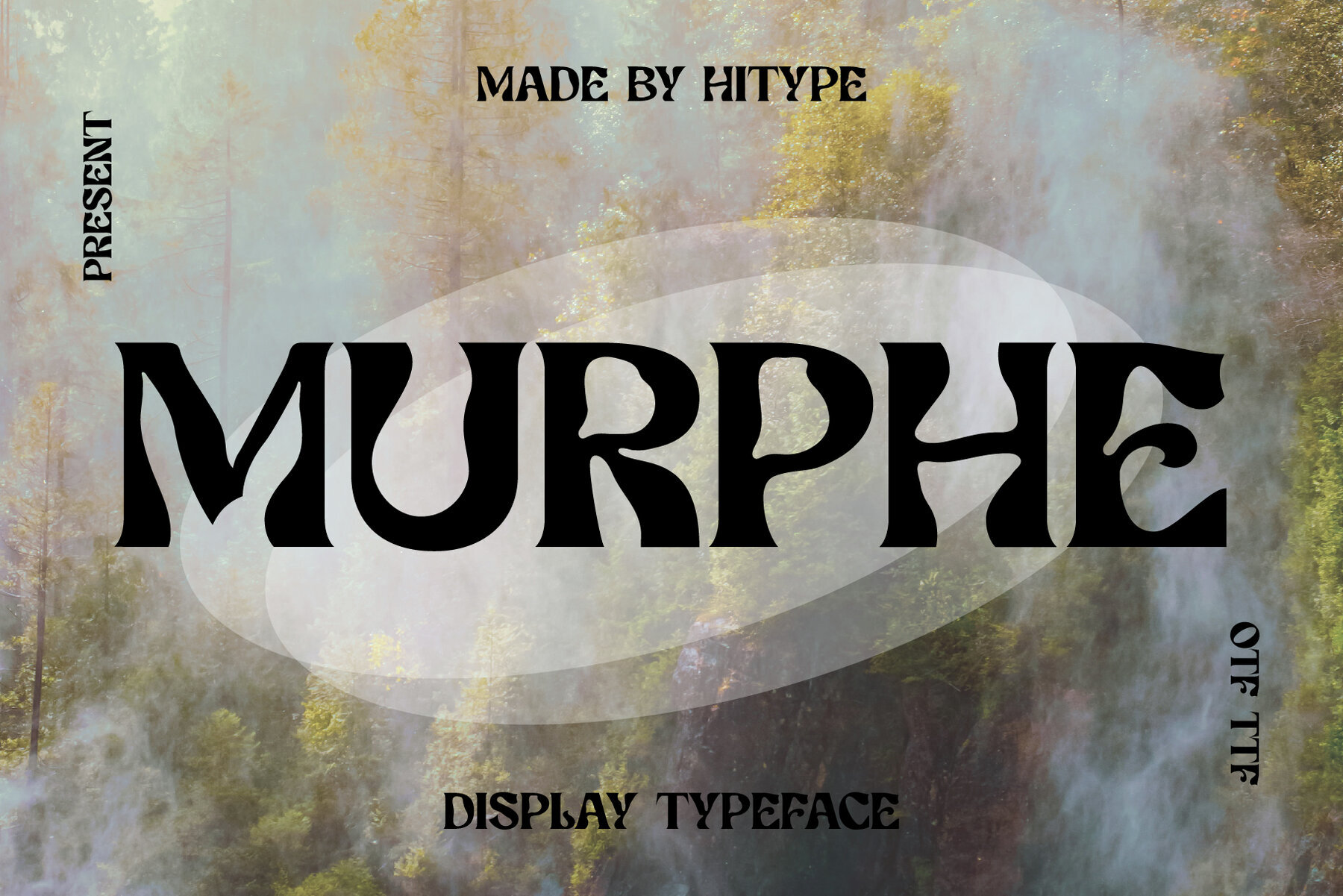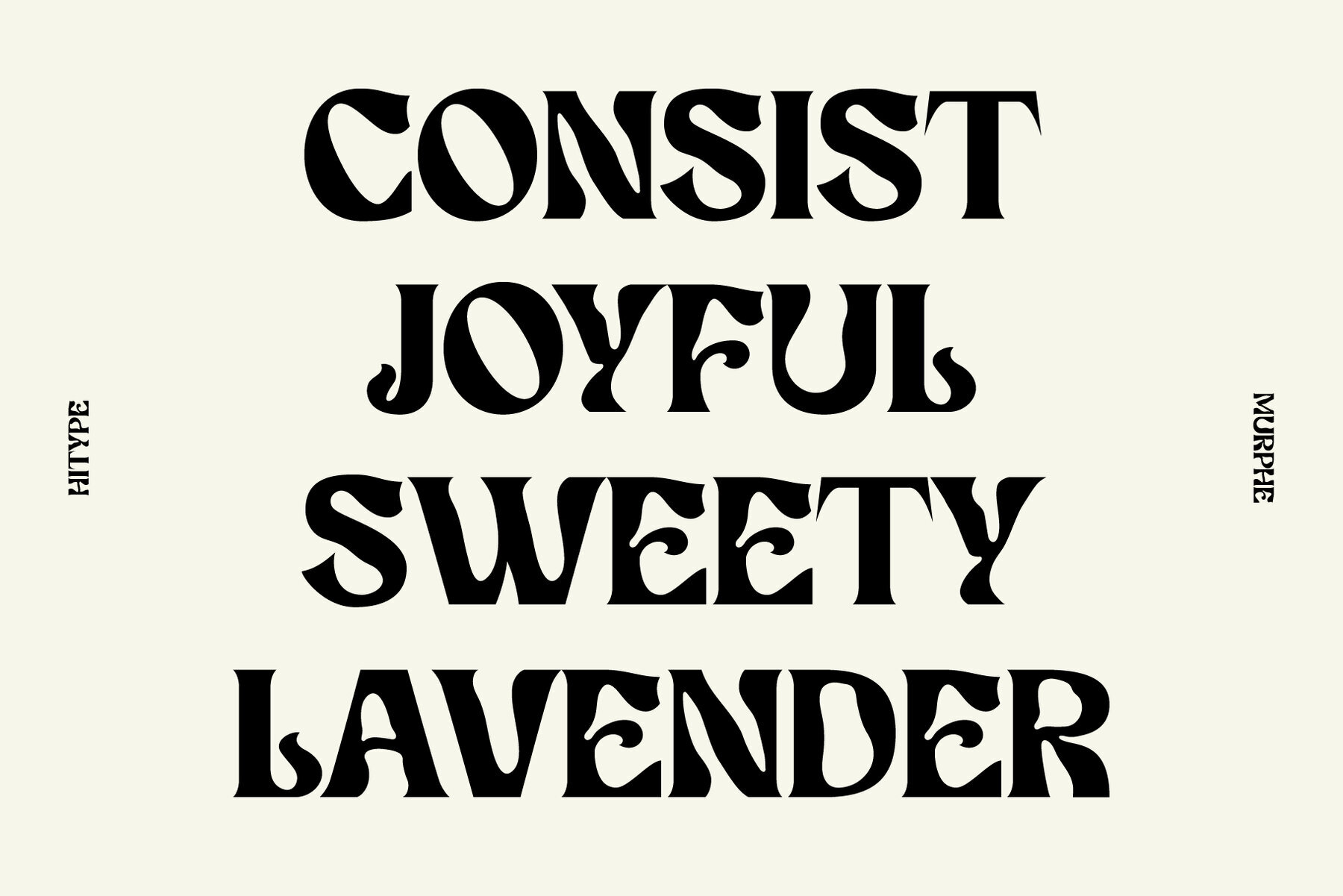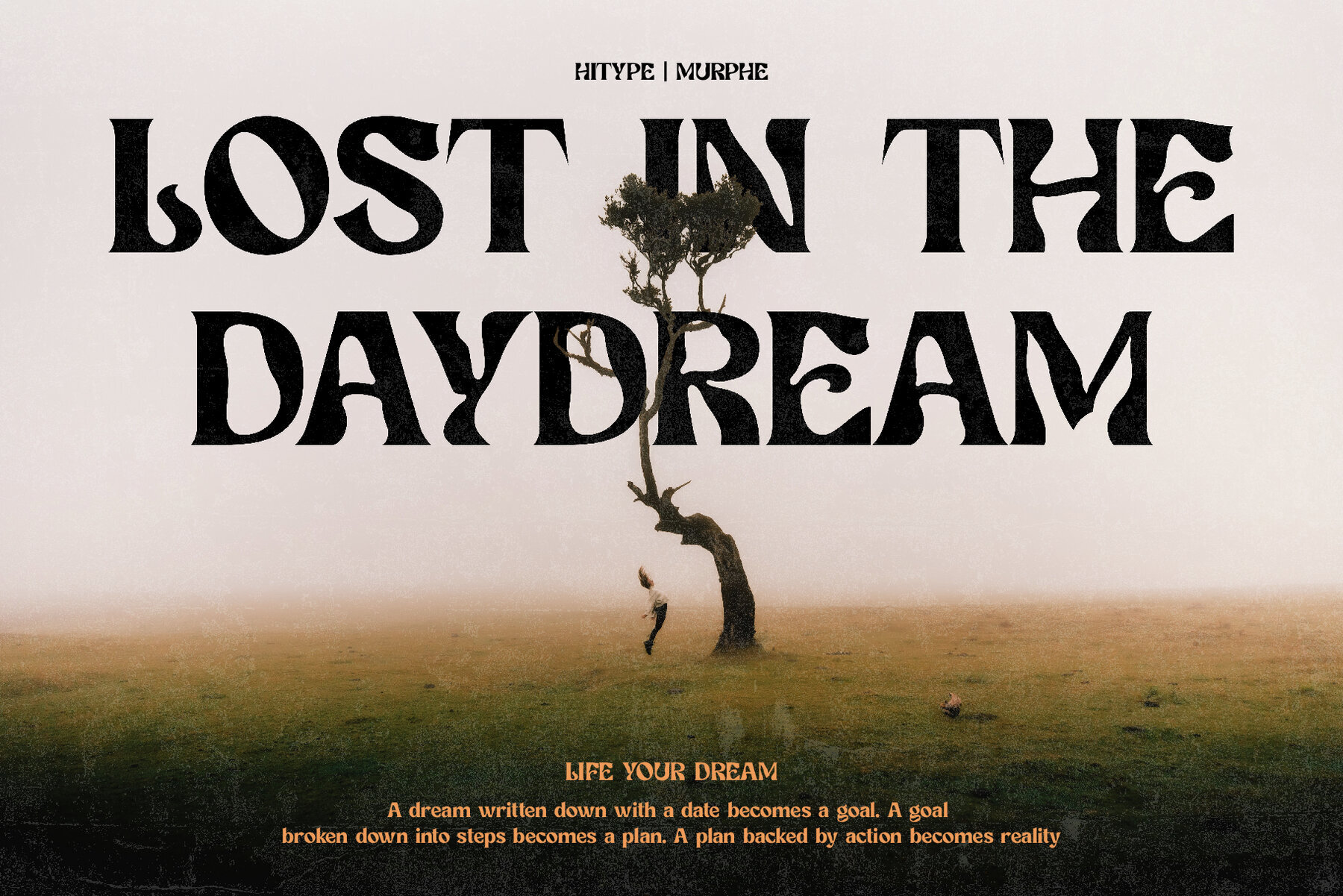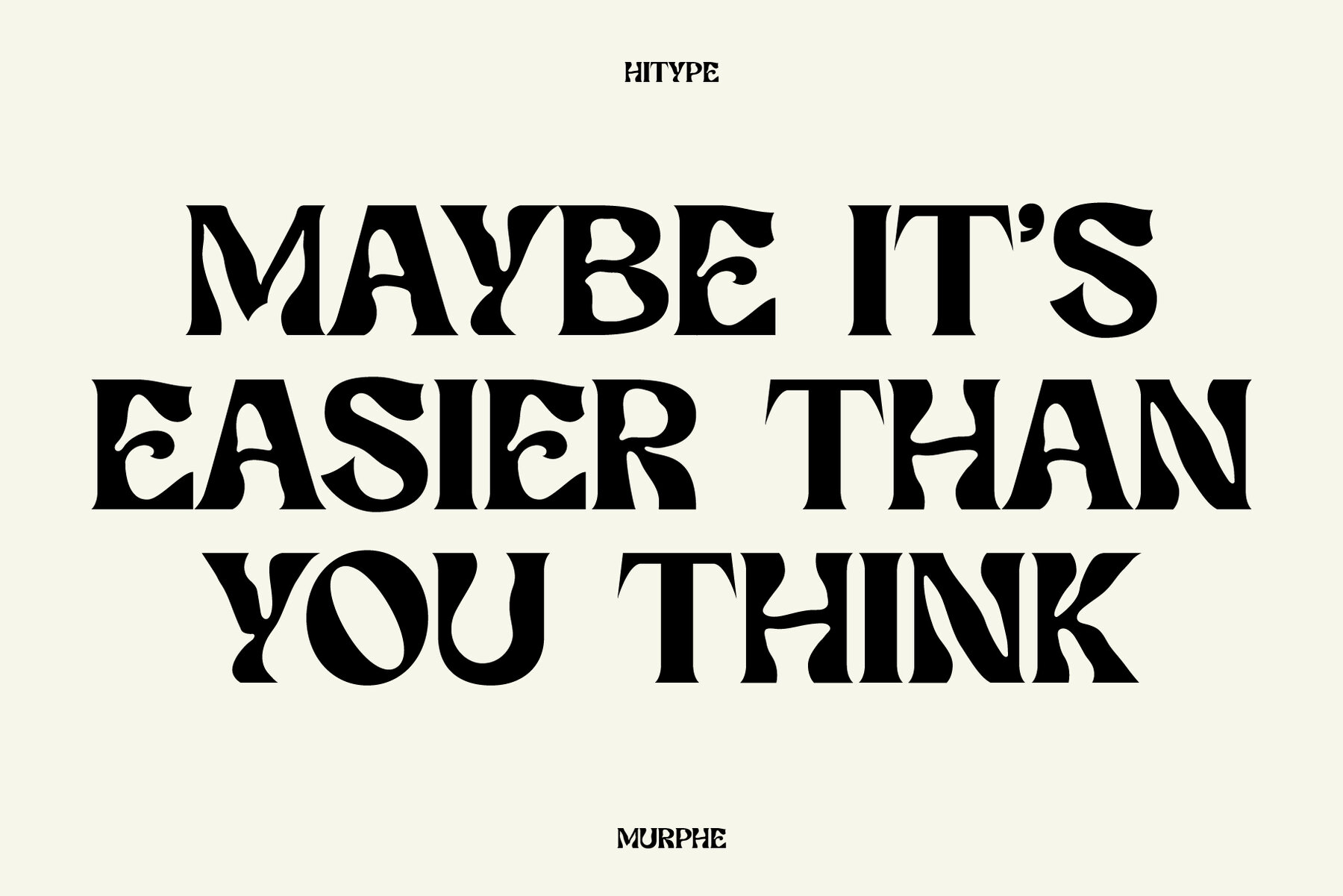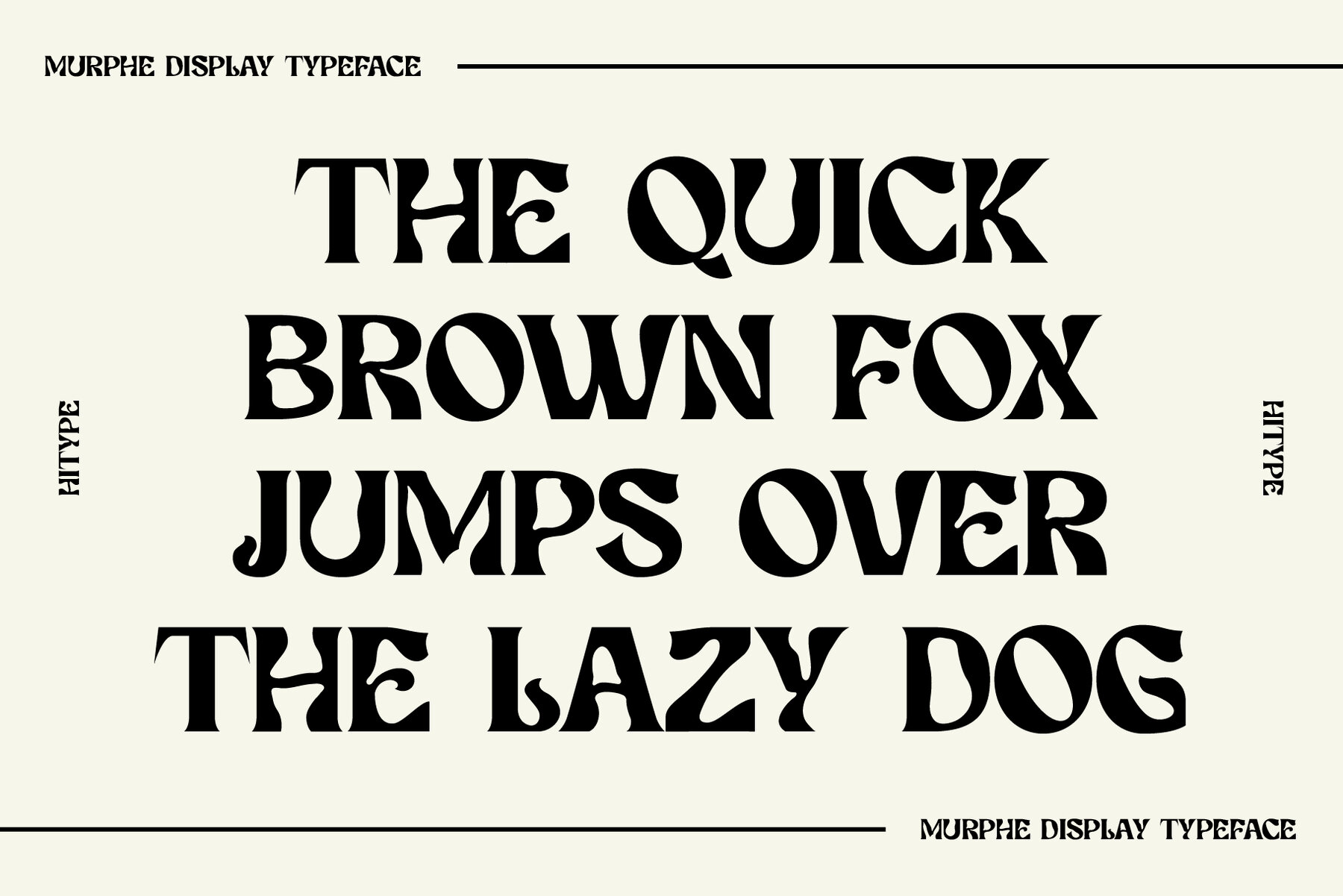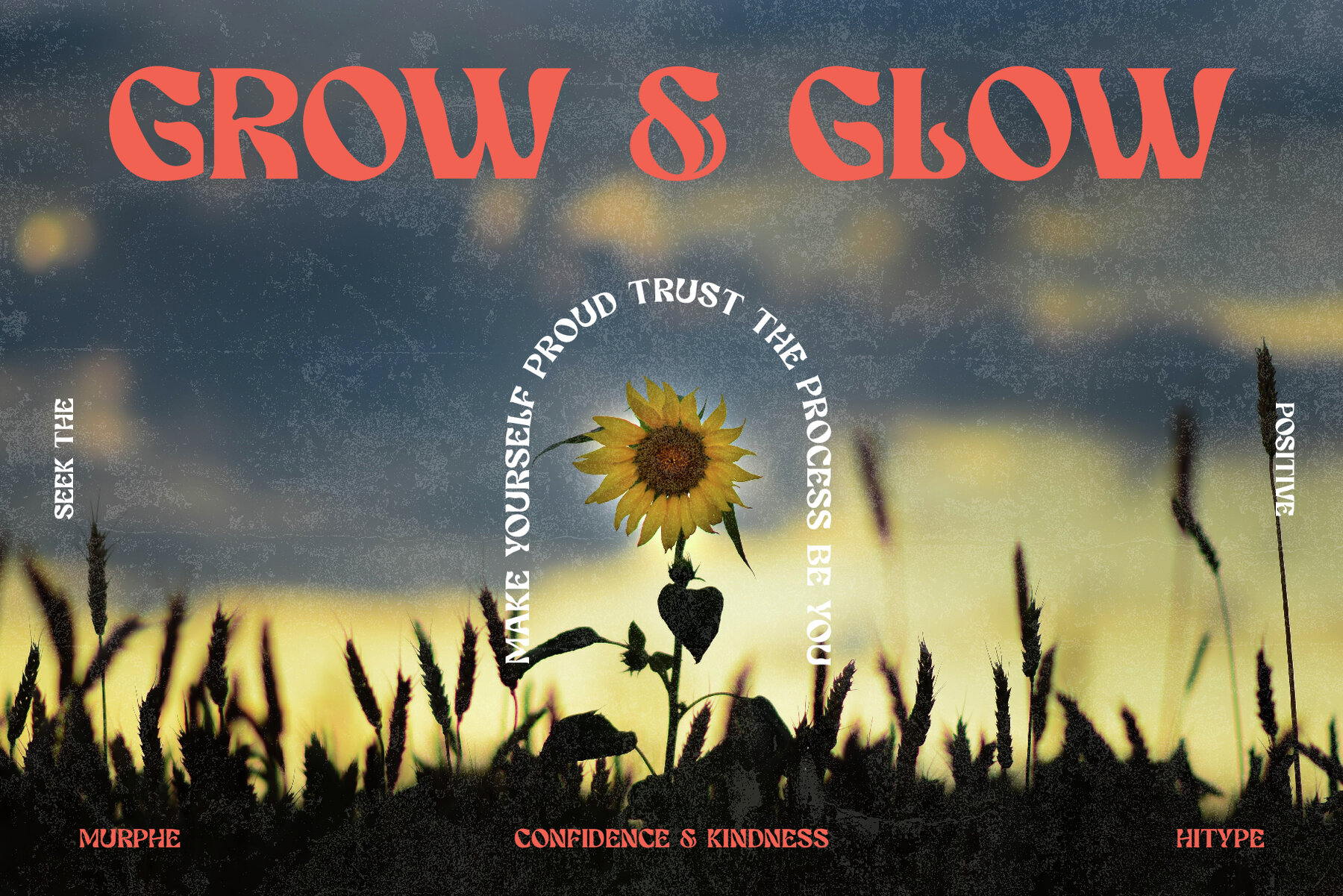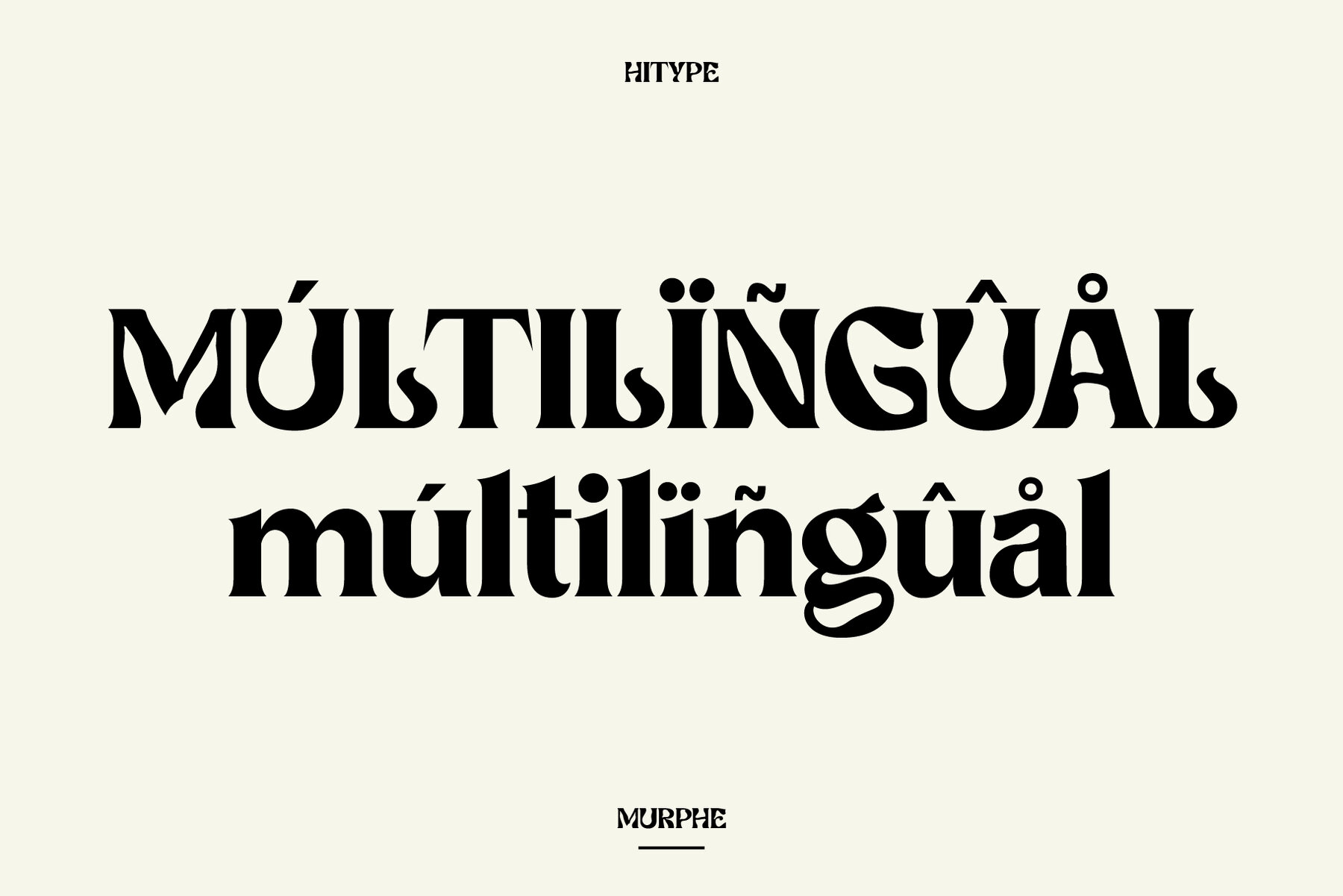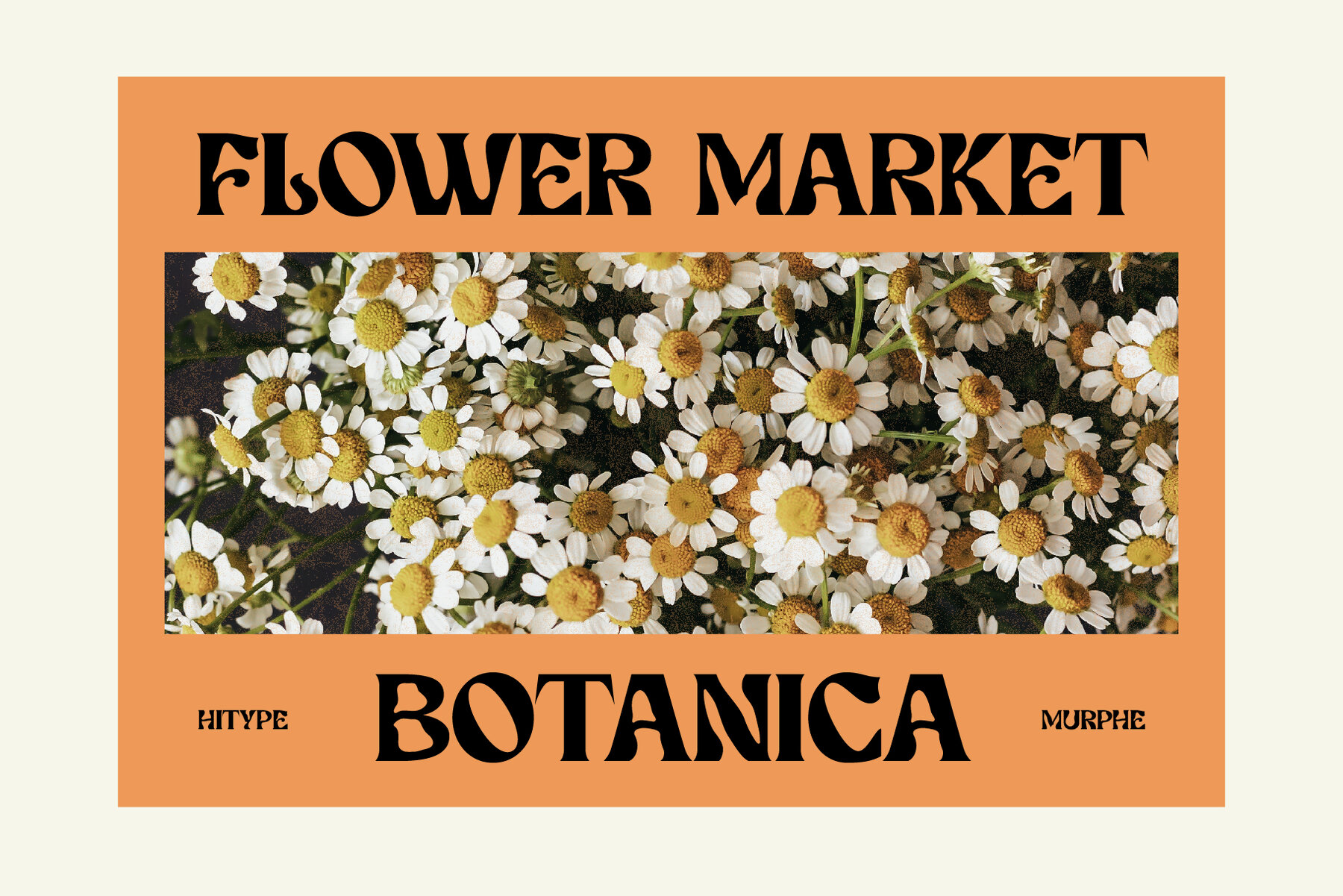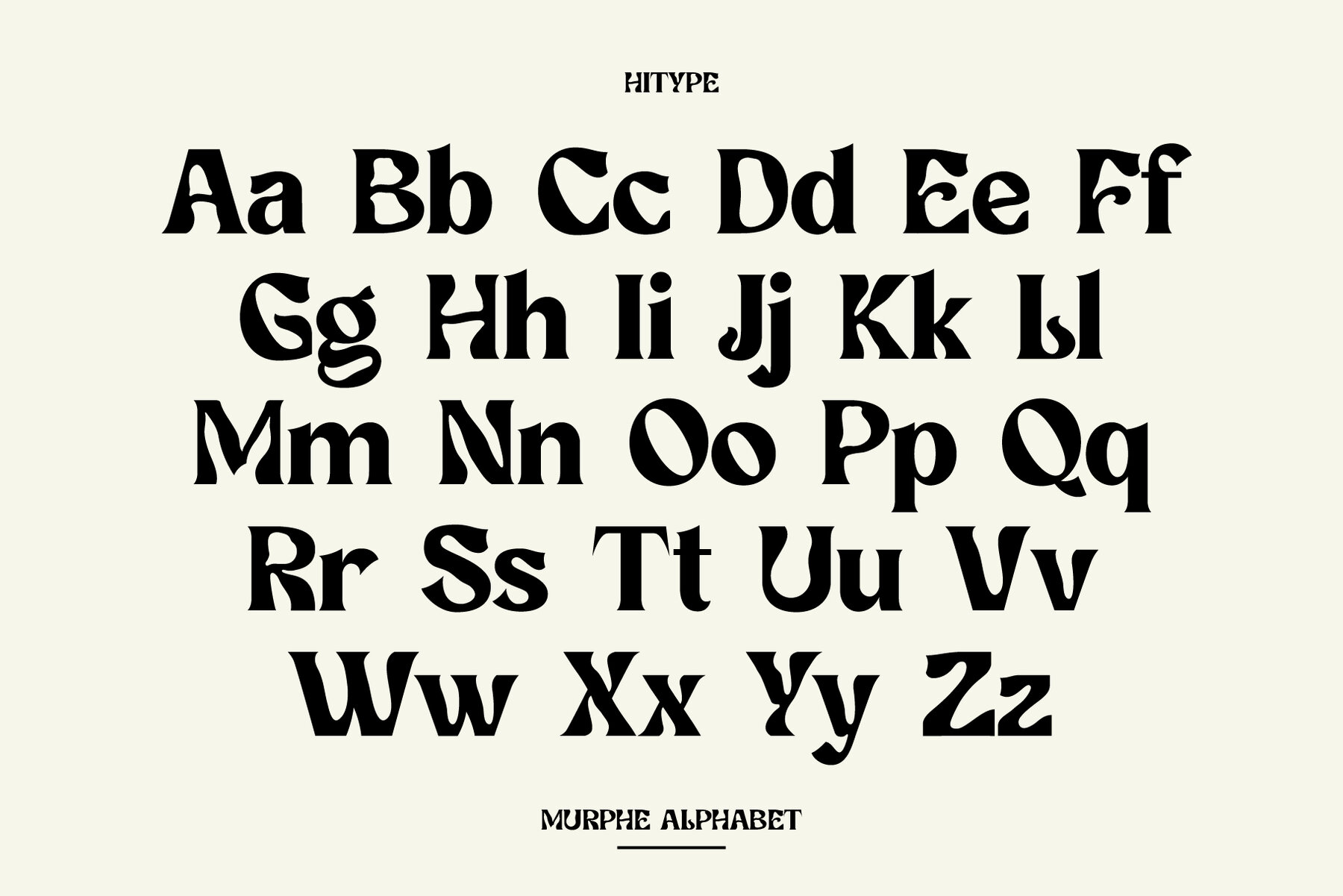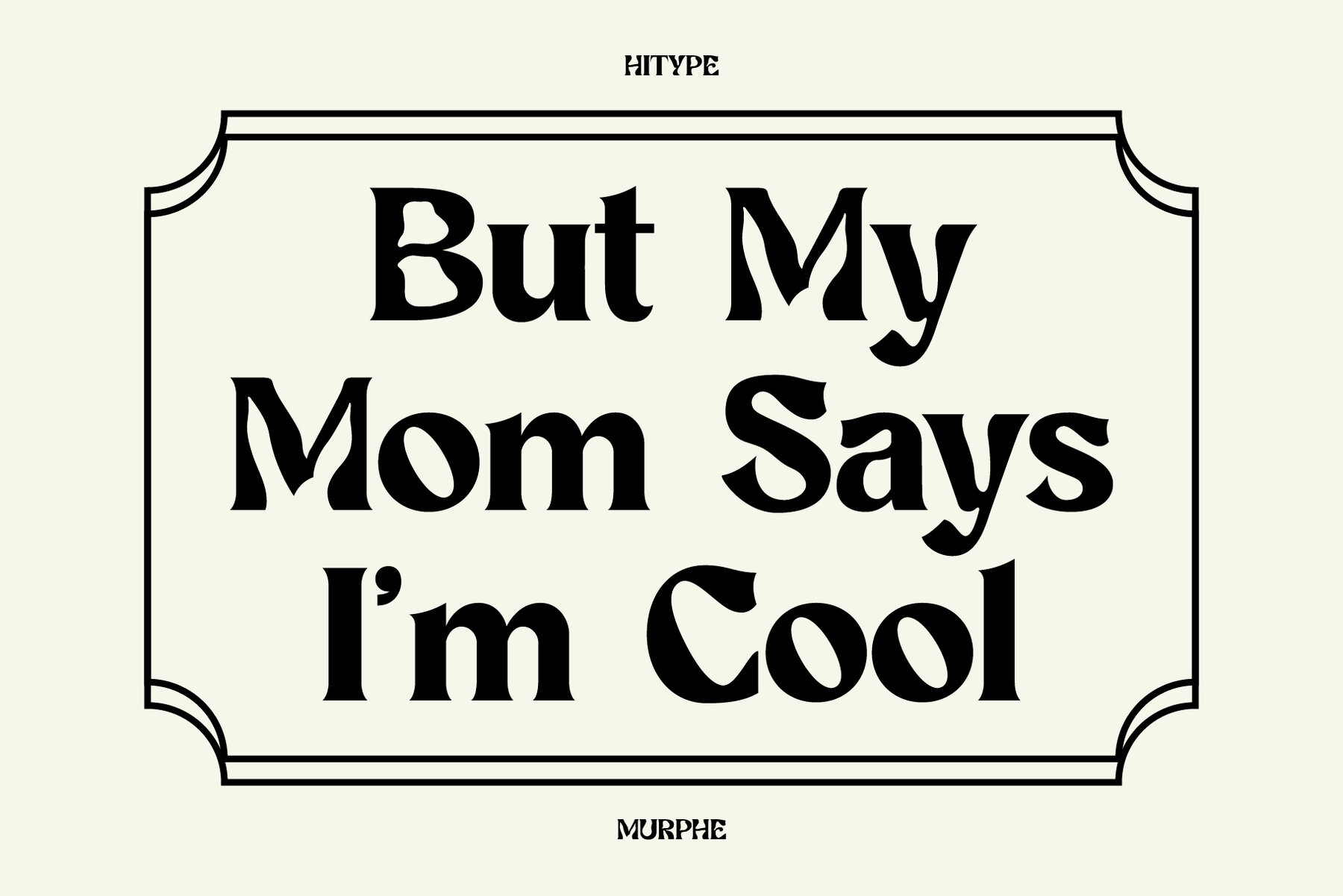
Murphe Font
Murphe
Murphe offers a bold, artistic presence with vintage-inspired character details. Its expressive forms and defined personality create sophisticated visual statements for print and digital work. Ideal for editorial layouts, logos, posters, and branding, this display typeface introduces a timeless style anchored in modern readability. Every letter is designed to stand out, making it easy to infuse personality into packaging and creative projects. The confident form of each character adds distinction, making Murphe a reliable choice for projects demanding both elegance and a memorable impact.Murphe Display Typeface